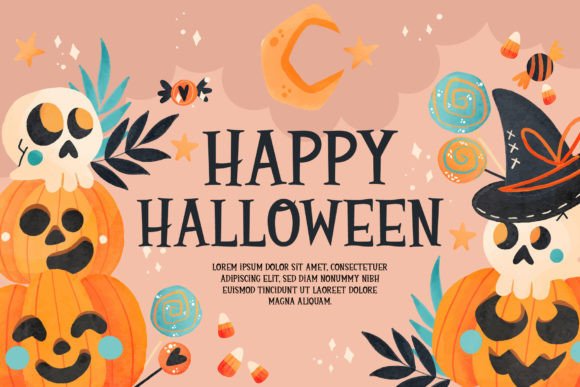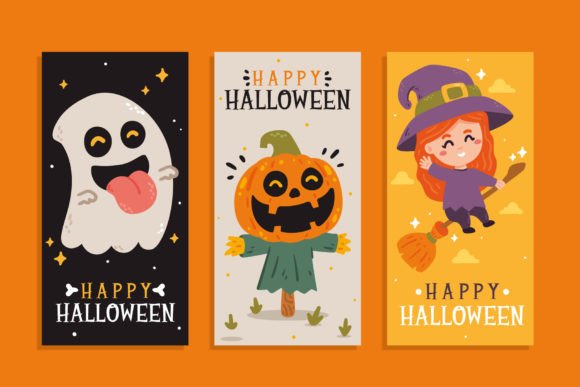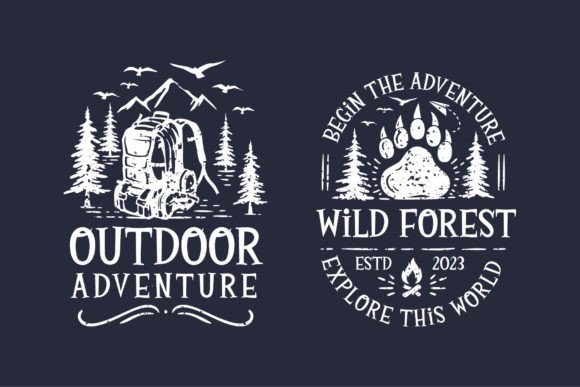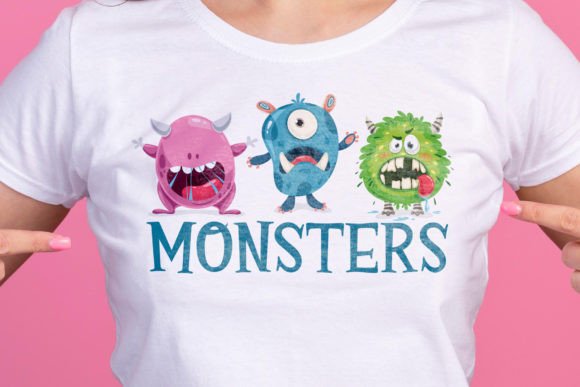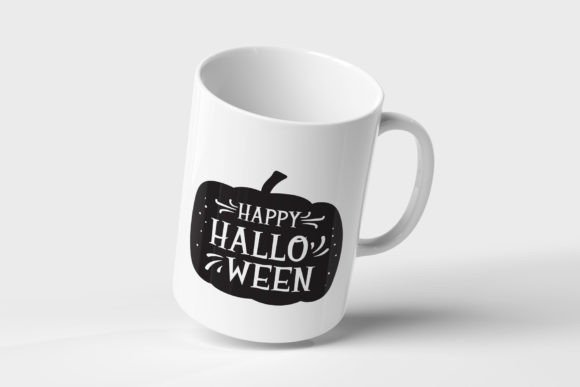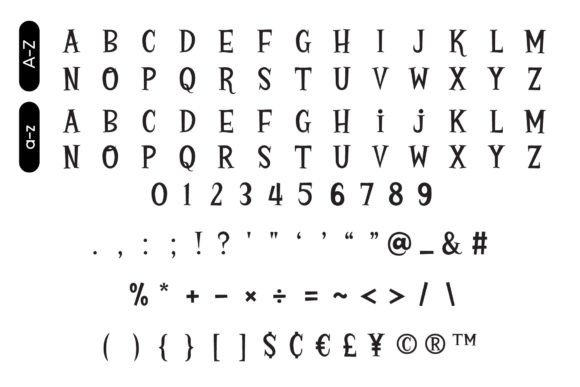
Introduction to Fox Devil Font
Fox Devil is a beautiful and fun-style sans serif font, suitable for a variety of designs such as Halloween, and children’s themes.
It is perfect for logos, t-shirts, papers, print designs, website headers, photo frames, flyers, music covers, posters, image sliders, and much more .